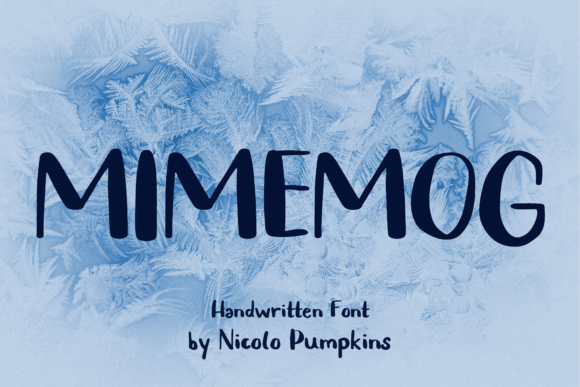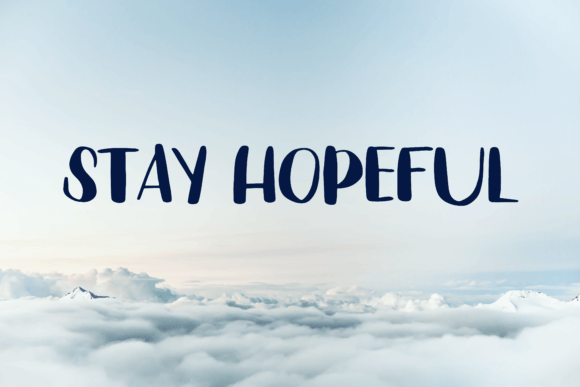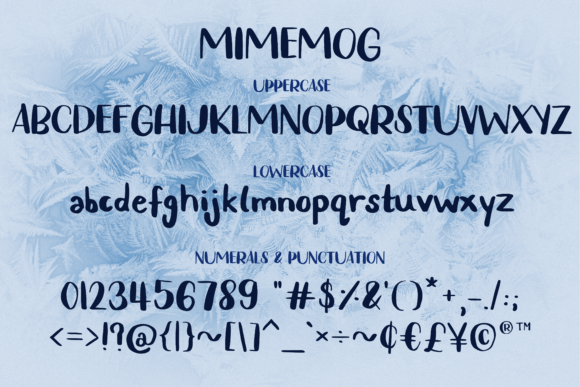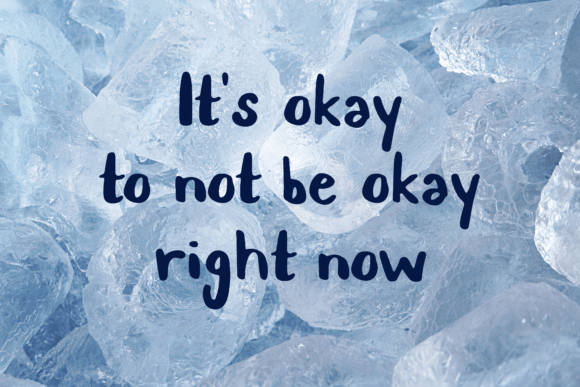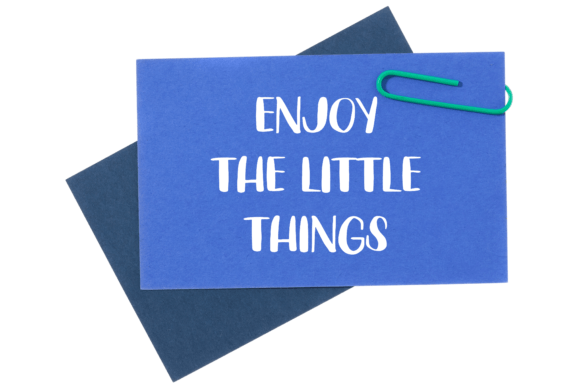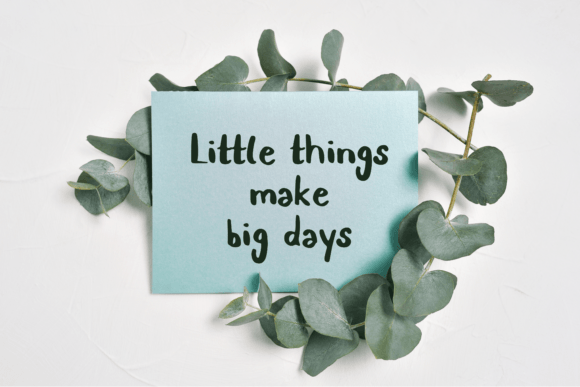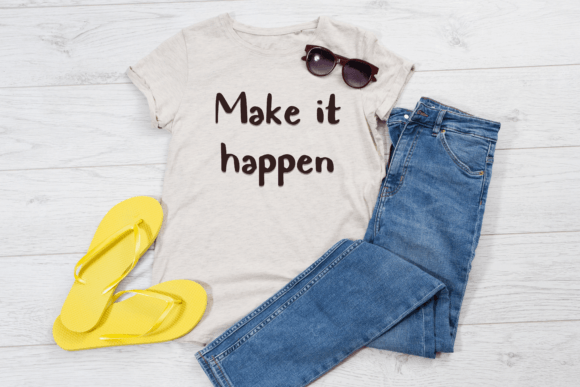
Mimemog Font
About Mimemog Font
“Mimemog is a delightful and friendly handwritten font that adds a playful touch to your creative projects. Perfect for creating quotes, logos, and various lettering projects, Mimemog brings a charming and approachable vibe to your designs. This font is designed to make any creative idea stand out with its unique and whimsical style.
The playful nature of Mimemog makes it an ideal choice for projects that require a touch of friendliness and creativity. Whether you’re crafting a memorable quote, designing a distinctive logo, or working on any lettering project, Mimemog adds a special character to your text that captures attention.
Picture Mimemog enhancing a quote on social media, instantly drawing in your audience with its cute and friendly demeanor. Envision it bringing a touch of joy to a logo design, making your brand approachable and memorable. Mimemog is versatile, making it suitable for a wide range of creative applications where a playful and friendly font is needed.
Incorporate Mimemog into your design toolkit for a font that not only stands out but also infuses your projects with a sense of charm and personality. Let Mimemog be the creative companion that elevates your lettering endeavors and makes them truly unforgettable!”